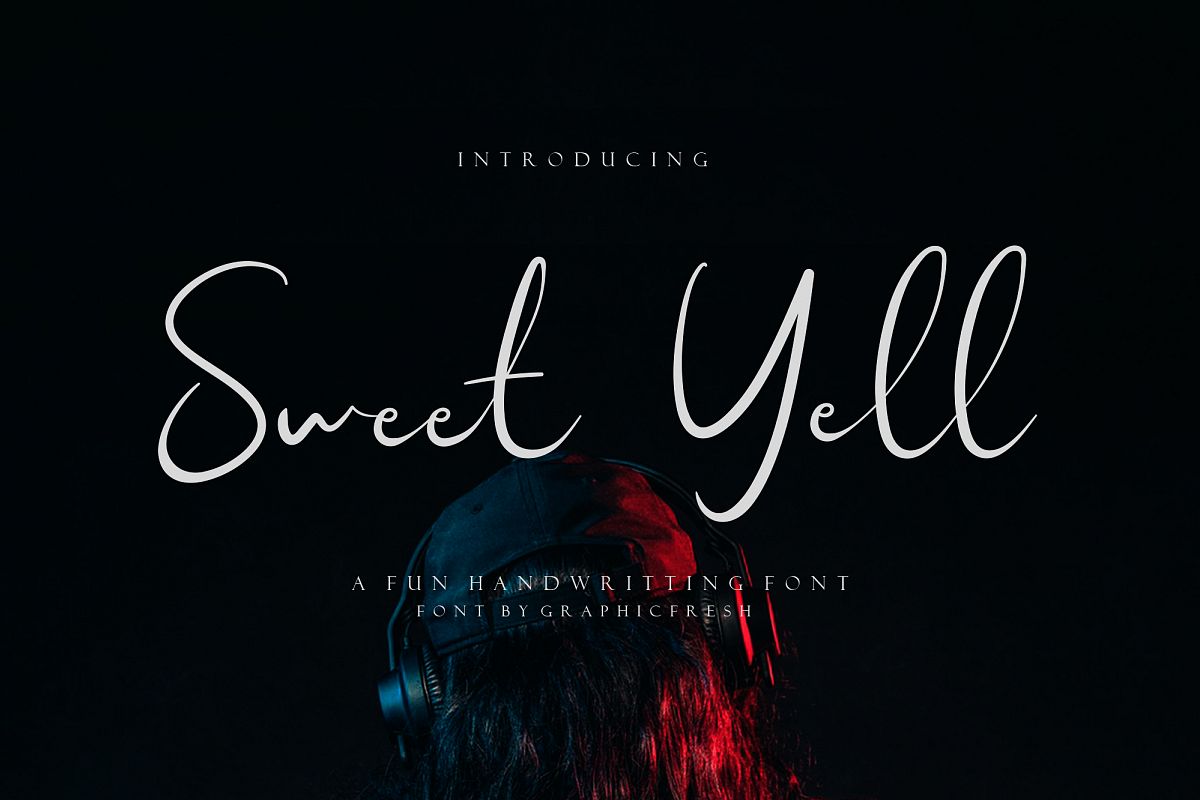
Sweet Yell - A Fun Handwritting
Sweet Yell - A Fun Handwritting script and unique character! it's perfect for logos, name card, magazine layouts, invitations, headers, or even large-scale artwork.